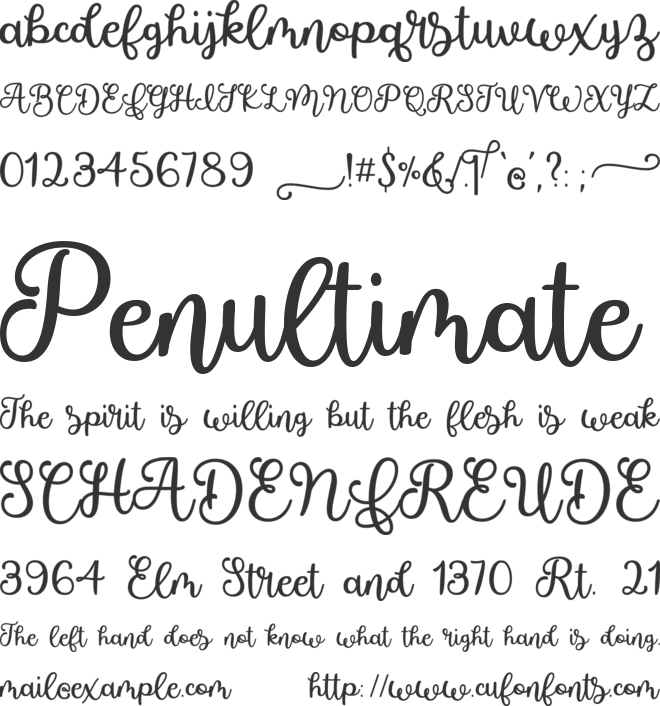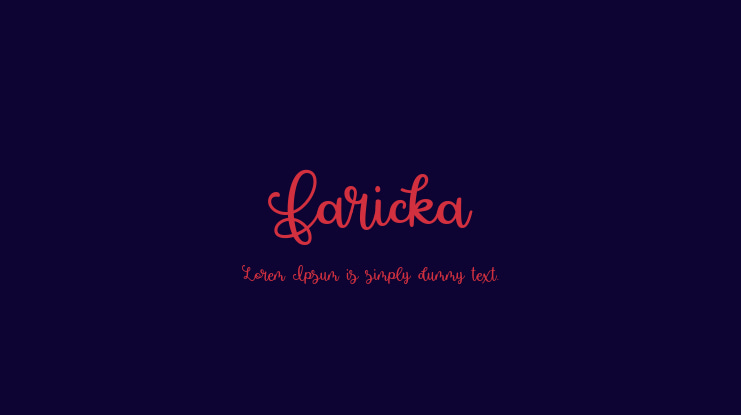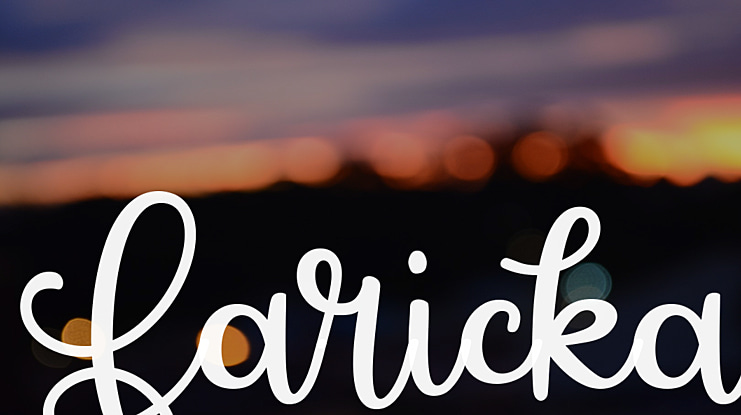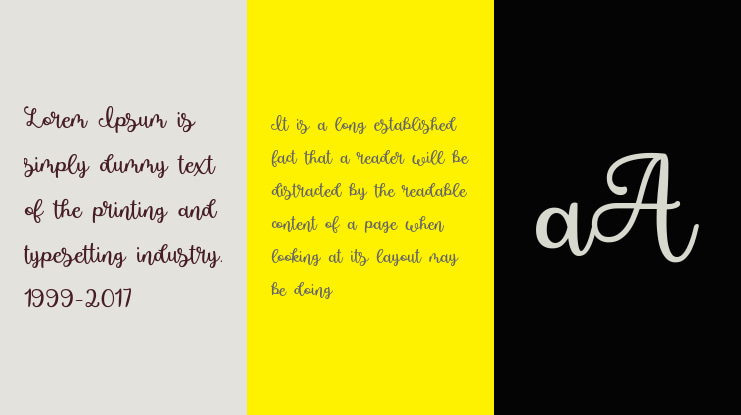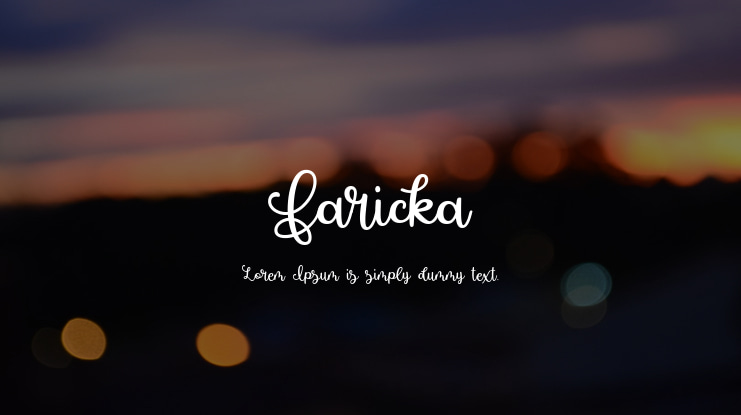
Faricka Font
Faricka is a whimsical, bouncy script font with lovely curls and a friendly style. Use it to create the most impressive designs such as wedding invitations, watermarks, photography, movies, apparel designs, and so much more!